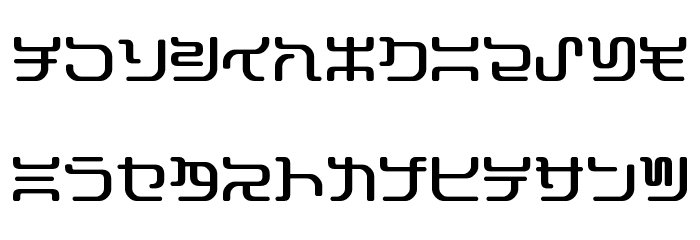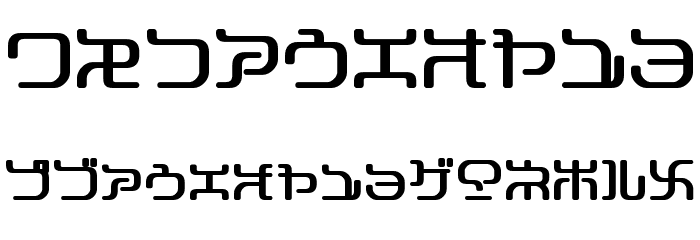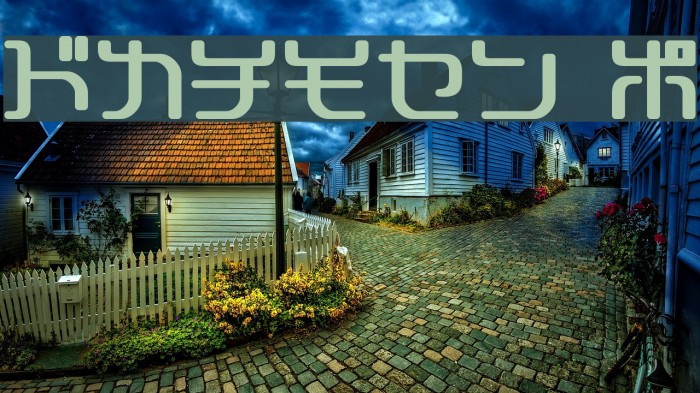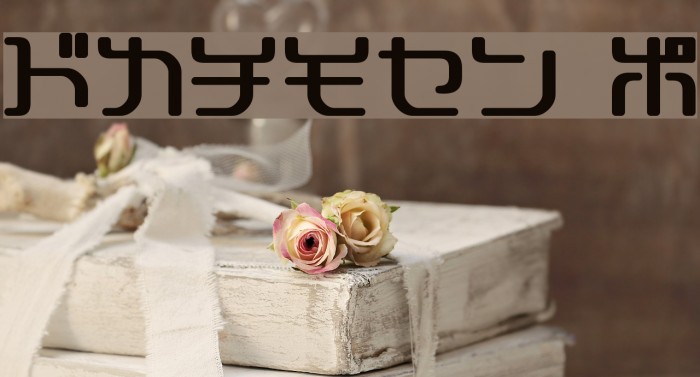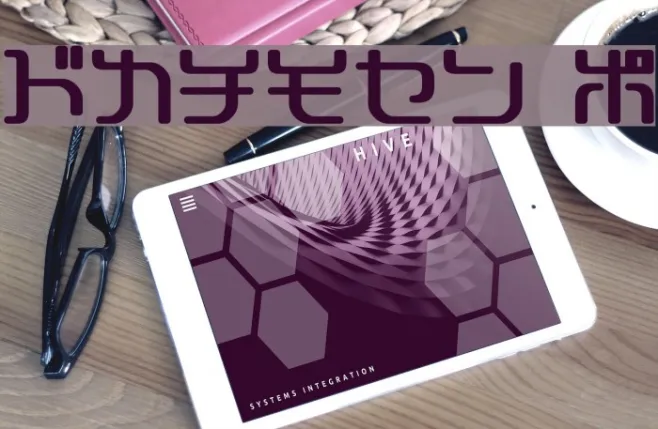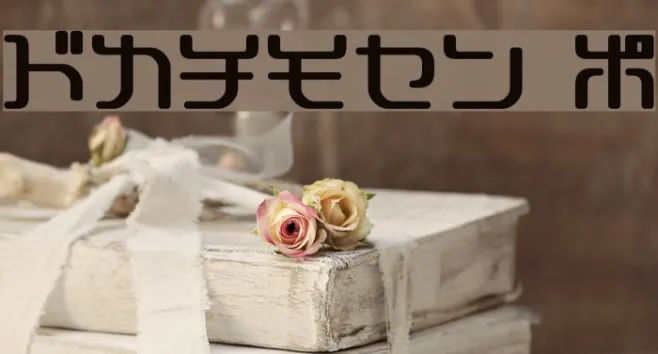
Stampy K Font
This font features a unique, futuristic design with rounded edges and a consistent line thickness throughout each character. The characters are stylized with a geometric flair, incorporating curves and straight lines that create a modern and tech-inspired appearance. The font maintains a uniform height and width across all characters, giving it a balanced and cohesive look. Its distinct style makes it stand out, suitable for creative and innovative projects. The spacing between characters is moderate, ensuring readability while maintaining its artistic appeal.
A futuristic, geometric font with rounded edges and consistent line thickness.
- Proposed Projects: Ideal for tech-related branding, sci-fi themed designs, video game interfaces, and modern art projects.
- Overall Style: Futuristic